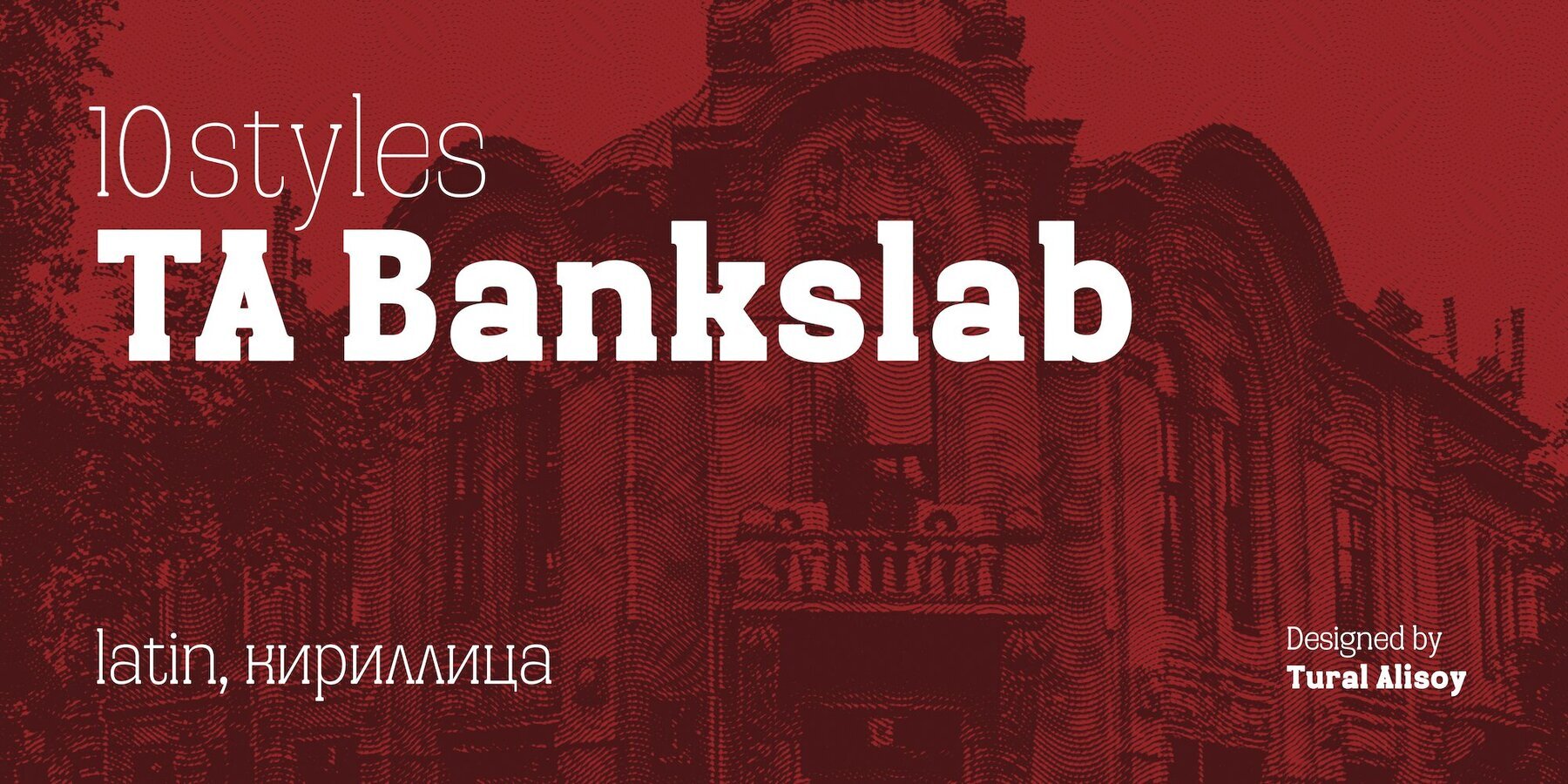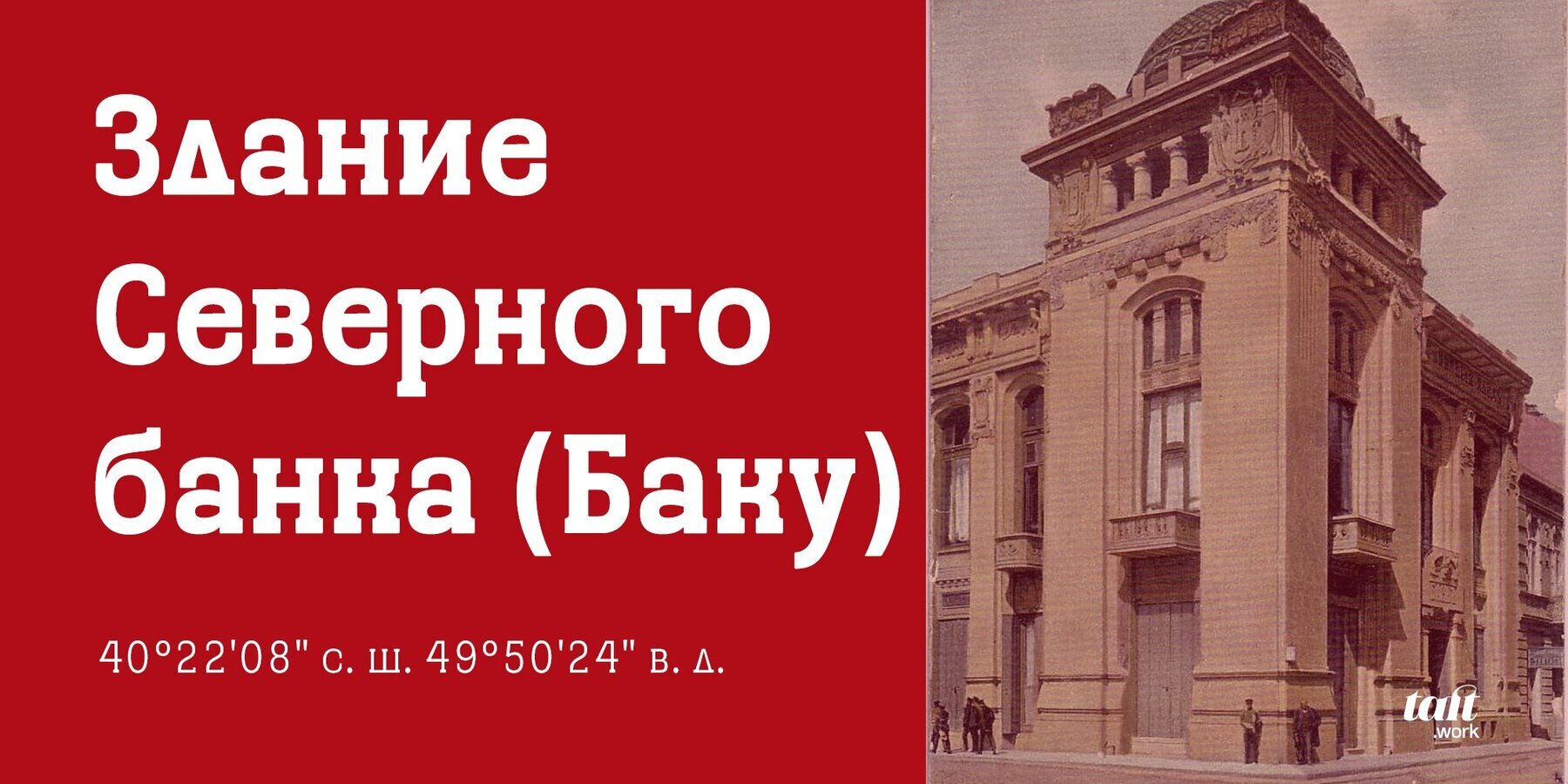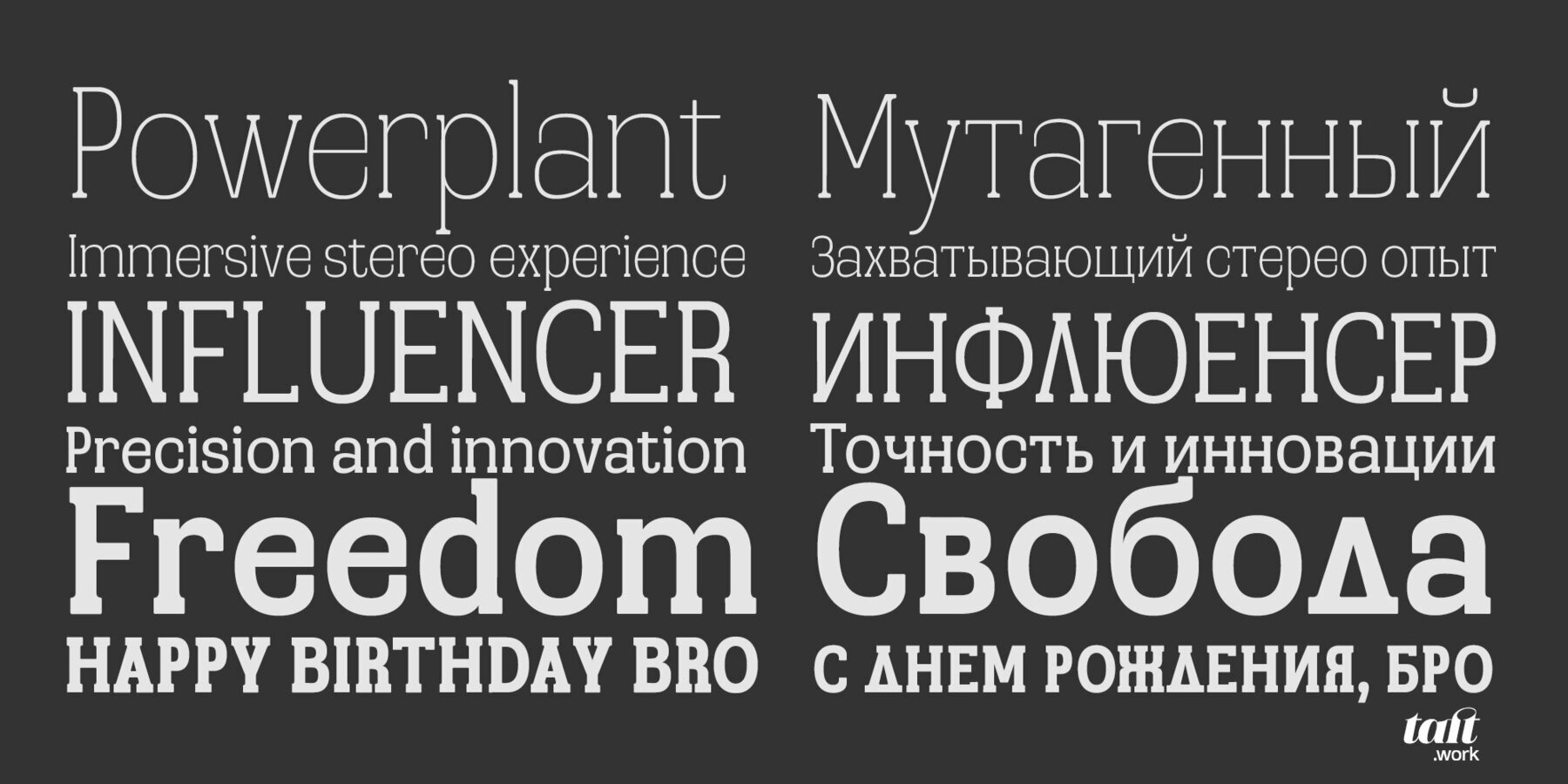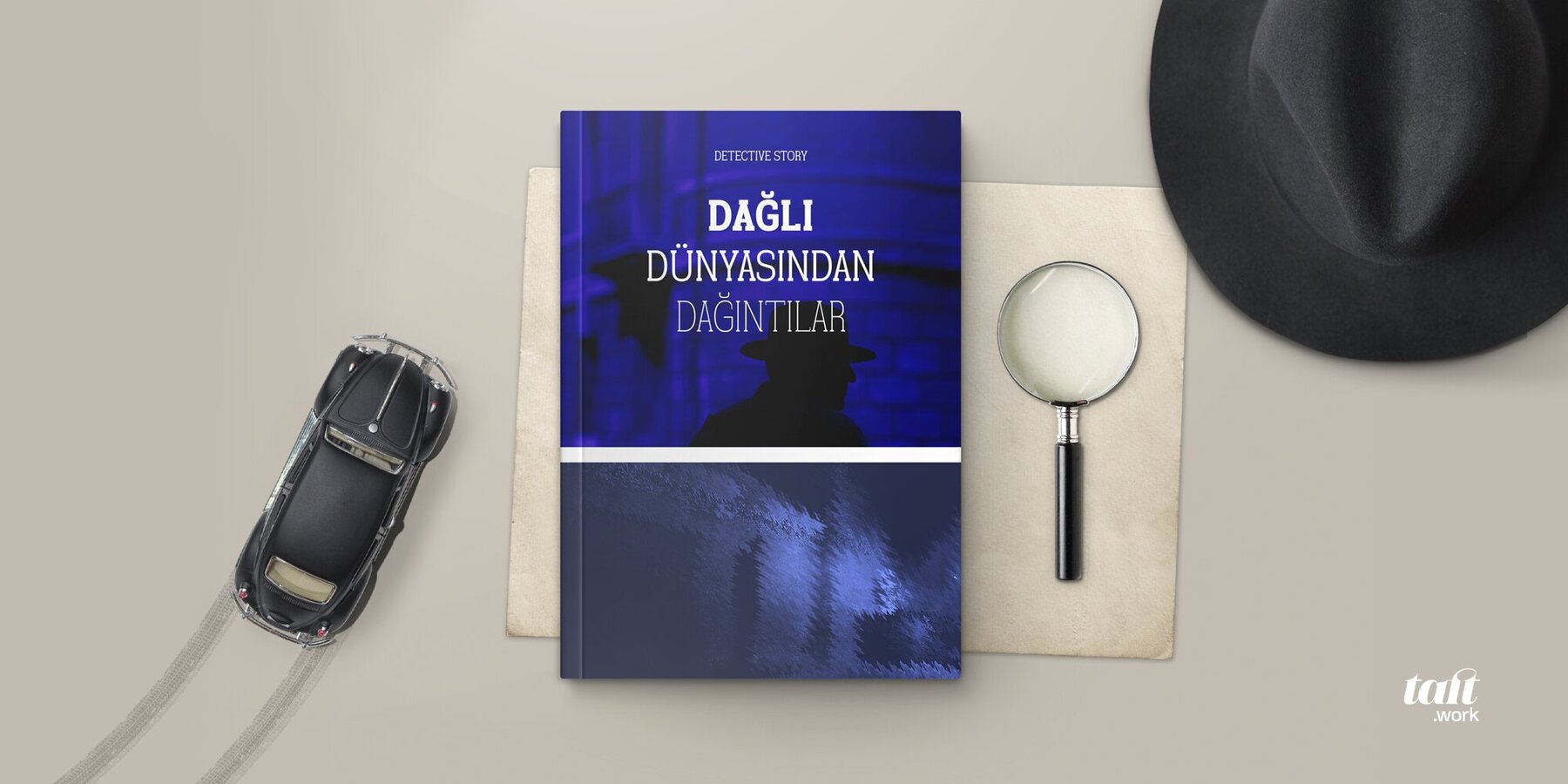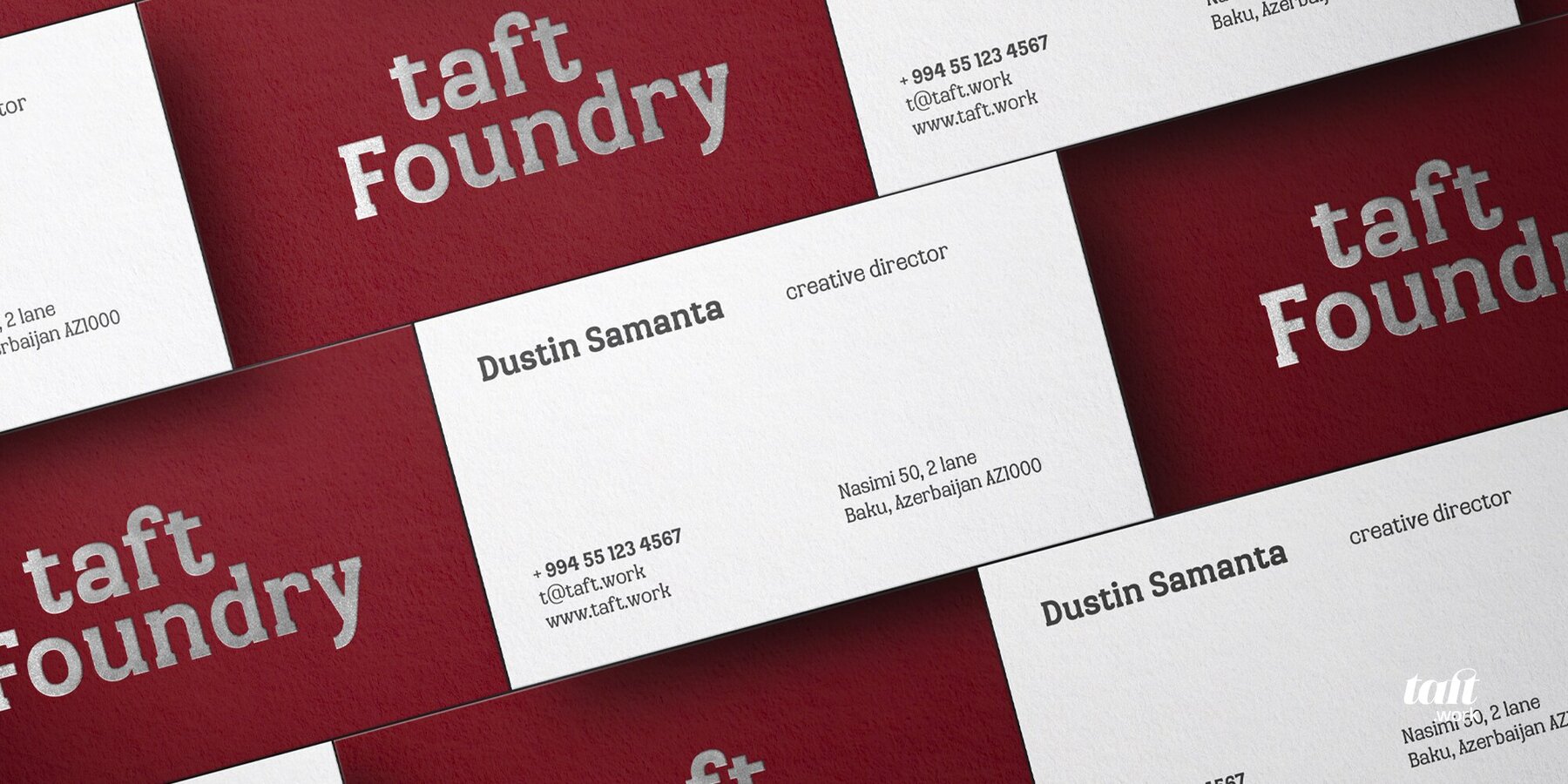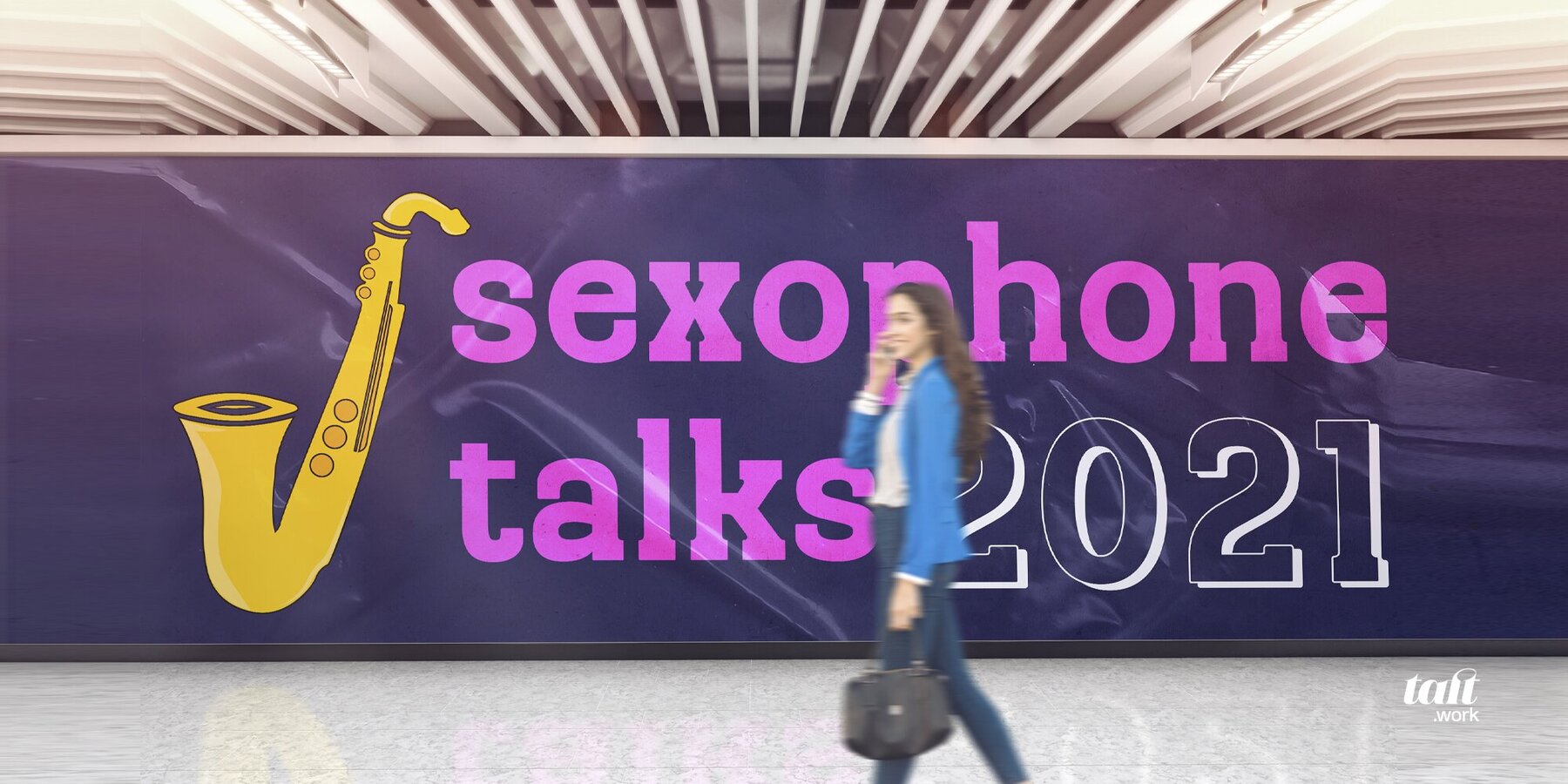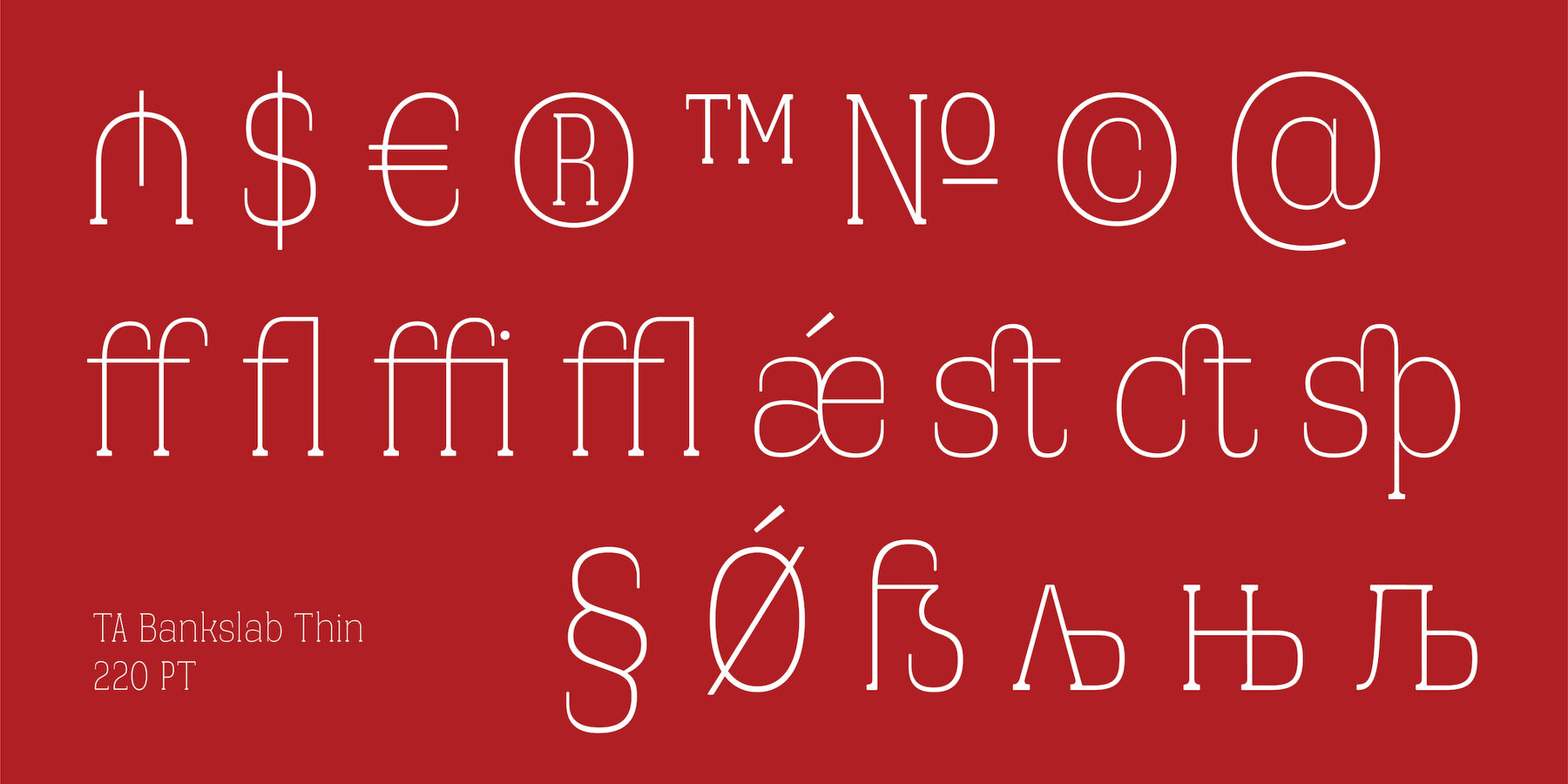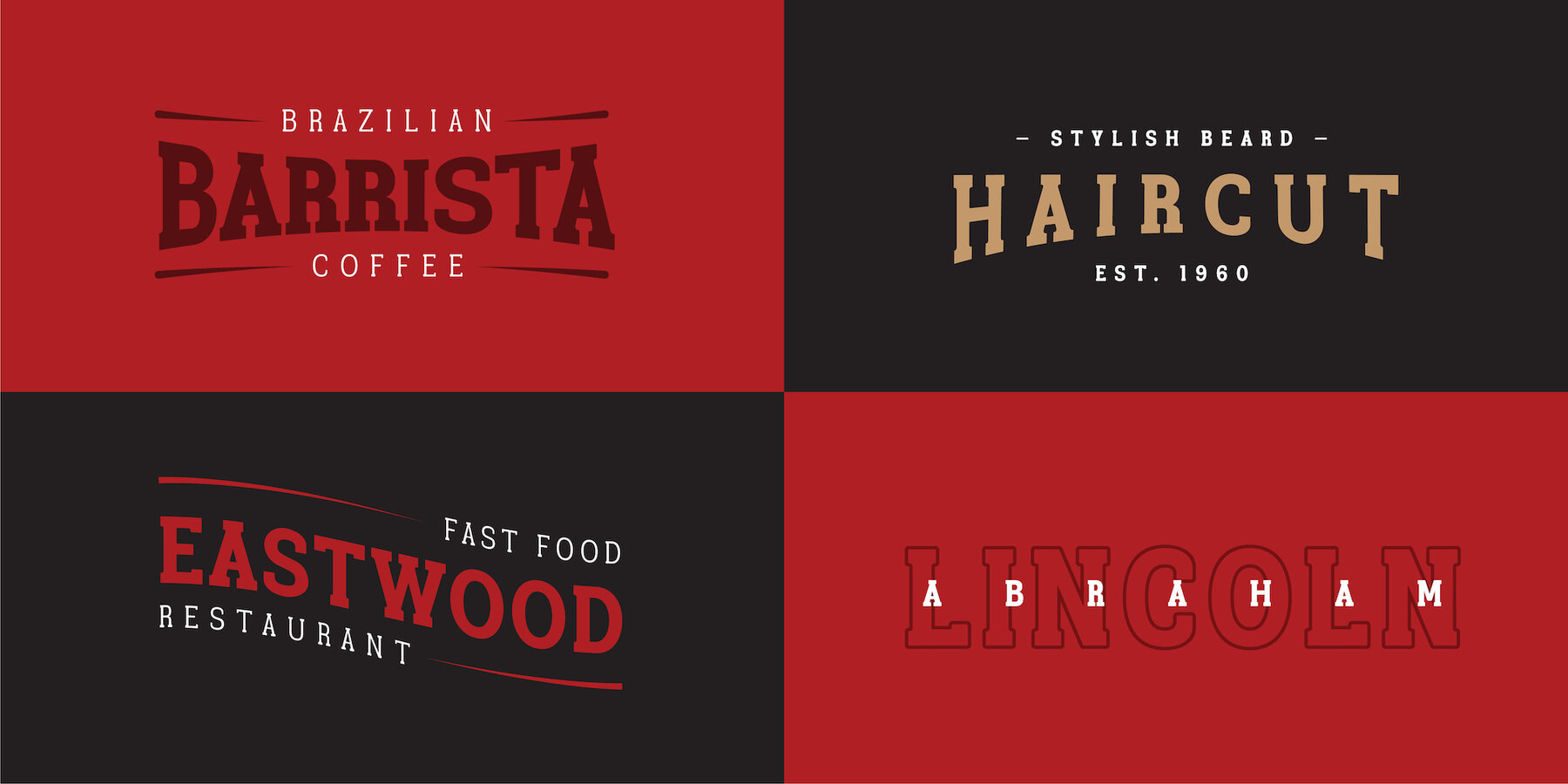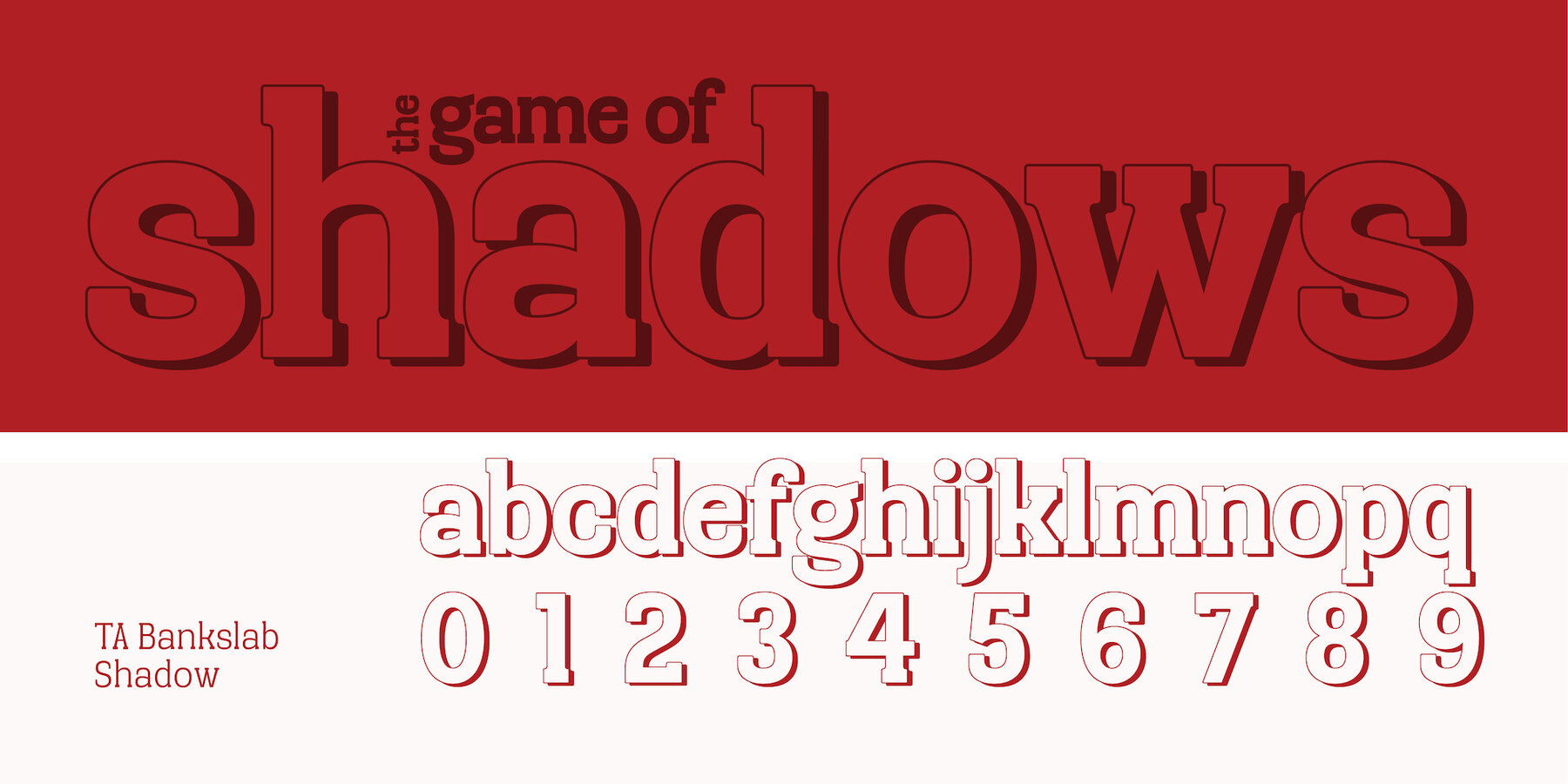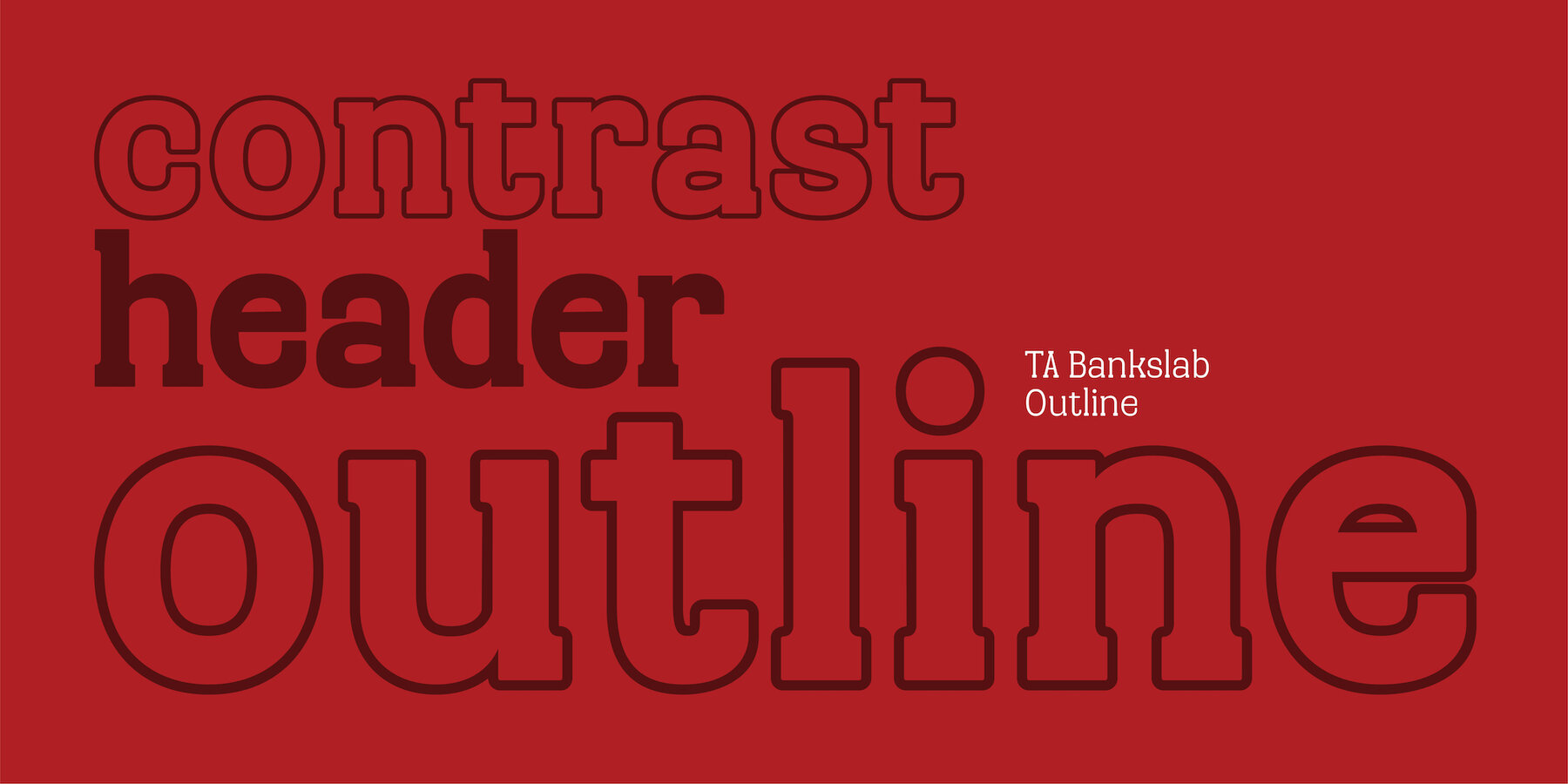
TA Bankslab Font
The building of the Northern Bank of St. Petersburg's Baku branch was built in 1903-1905. It was the first Art Nouveau-style building in Baku, Azerbaijan. Later the bank was transformed into the Russian-Asian Bank.
After the oil boom in Baku in the 19th century, branches of many banks and new banks were opened in the city. The branch of the Northern Bank of St. Petersburg was among the first banks that was opened in Baku. N.Bayev was the architect of the building for the branch of the Northern Bank of St. Petersburg located at Gorchakovskaya 3 in 1903-1905. The building currently houses the Central Branch of the International Bank of Azerbaijan. My purpose in writing this is not to copy and paste the information from Wikipedia. What attracted me to the building was the word "Банкъ" (Bank) written in Cyrillic letters, which was also used in Azerbaijan during the Soviet era. The exact date of the writing is not known.
Every time I pass by this building, I always thought of creating a font of this writing someday. I had taken a photo of the building and saved it on my phone. I did a lot of research on the font and asked a lot of people. However, some did not provide information at all and some said they did not have any information. I was interested in the history of this font but I do not know if this font really existed or it was created by the architect out of nowhere. If there was such a history of this font, I wanted to recreate this font and make it available. If not, I had to create it from scratch in the same way, using only existing letters on the building. Finally, I made up my mind and decided to develop the font with all letters I have got.
It was difficult to create a font based on the word, Банкъ. Because in the appearance of the letters, the midline of the letters on A, H, K was very distinct, both in the form of inclination and in more precise degrees. The serif part of the letters, the height of the upper and lower sides, differed from each other. I don't know whether it was done this way when the building was constructed or it happened over time.
I prepared and kept the initial version of the font. I took a break for a while. I started digging on the story of the font again. Meanwhile, I was researching and got inspired by similar fonts. Unfortunately, my research on the font's history did not yield any results.
I decided to continue finishing up the font. After developing the demo, I created the font by keeping certain parts of these differences in the letters. In addition, I had to consider the development of letters in the Cyrillic, as well as the Latin alphabet, over the past period.
Thus, I began to look at the appearance of slab-serif or serif fonts of that time. In general, as I gain more experience in developing fonts, I try to focus on the precision of the design for each font. In recent years, I specifically paid attention to this matter.
YouTube channel and articles by Alexandra K.'s of ParaType, as well as, information and samples from TypeType and Fontfabric studios on the Cyrillic alphabet were quite useful. I gathered data regarding the Latin alphabet from various credible sources.
I do not know if I could accomplish what I aimed at but I know one thing, that I could develop the font. Maybe someday I'll have to revise this font. For now, I share it with you.
I created the font in 10 styles. 7 weight from Thin to Extra Black, an Outline, Shadow, and Art Nouveau. The Art Nouveau style was inspired by the texture in the background used for the text on the building. The texture I applied to capital letters adds beauty to the font.